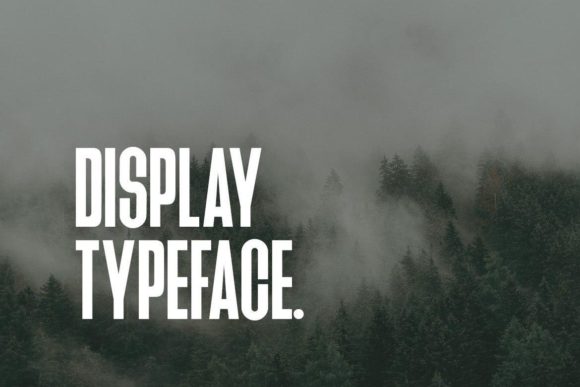
Introducing Devant Horgen Font: The Ultimate Sans Serif for Creative Projects
Are you on the lookout for a font that can elevate your creative projects to the next level? Look no further than Devant Horgen Font, a minimal and neat sans serif font that is perfect for a wide range of applications. With its clean and simple design, Devant Horgen is an excellent choice for designers and crafters who want to add a touch of sophistication and elegance to their work.
The Versatility of Devant Horgen Font
One of the standout features of Devant Horgen Font is its incredible versatility. Its minimalist design makes it an excellent choice for a wide range of projects, from modern logos and branding to digital and print materials. Whether you’re working on a website, social media graphics, or marketing materials, Devant Horgen is sure to make your project stand out.
Key Features of Devant Horgen Font
- Minimal and Neat Design: Devant Horgen Font boasts a clean and simple design that is perfect for modern projects.
- Sans Serif Style: The font’s sans serif style makes it highly legible, even at small sizes.
- Highly Versatile: Devant Horgen can be used for a wide range of projects, from logos and branding to digital and print materials.
- Elegant and Sophisticated: The font’s elegant design makes it perfect for projects that require a touch of sophistication.
Why Choose Devant Horgen Font?
So why should you choose Devant Horgen Font for your next project? Here are just a few reasons:
- Easy to Read: The font’s clean and simple design makes it easy to read, even for extended periods.
- Highly Customizable: Devant Horgen can be easily paired with other fonts and design elements to create a unique look.
- Perfect for Digital and Print: The font is optimized for both digital and print use, making it a great choice for a wide range of applications.
How to Use Devant Horgen Font in Your Projects
Using Devant Horgen Font in your projects is easy. Here are a few tips to get you started:
- Pair it with Other Fonts: Devant Horgen can be easily paired with other fonts to create a unique and interesting look.
- Use it for Headings and Body Text: The font’s clean design makes it perfect for both headings and body text.
- Experiment with Different Colors: Devant Horgen looks great in a wide range of colors, so don’t be afraid to experiment and find the perfect hue for your project.
In conclusion, Devant Horgen Font is a versatile and elegant sans serif font that is perfect for a wide range of creative projects. Its clean and simple design makes it easy to read and highly customizable, making it a great choice for designers and crafters who want to add a touch of sophistication to their work. So why wait? Download Devant Horgen Font today and see how it can elevate your projects to the next level!
- What type of font is Devant Horgen?
- Devant Horgen is a sans serif font.
- Is Devant Horgen suitable for digital use?
- Yes, Devant Horgen is optimized for digital use and can be used for a wide range of digital projects.